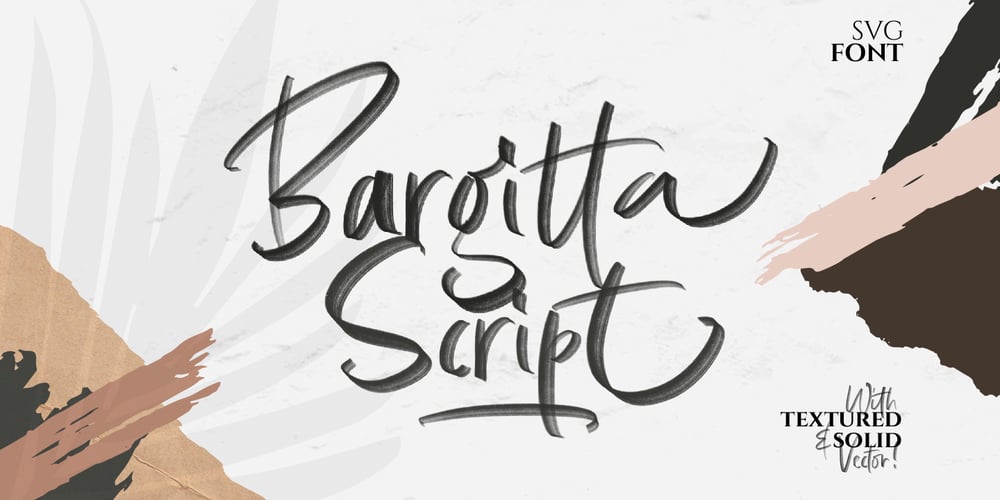
Bargitta
Bargitta font
Bargitta Font Family was designed by Hendry Juanda, Sarid Ezra and published by Letterhend. Bargitta contains 3 styles and family package options. Introducing a SVG font called Bargitta Script. This typeface has 3 different styles that you can use according your needs : Textured SVG, textured vector /rough, and solid. It has very nice look, very suitable for corporate branding, logos, documents, social media design, presentations, print design, web, and more. This typeface comes in uppercase and lowercase, with punctuation, symbols, numerals, stylistic set alternate, ligatures, and also has multilingual support.